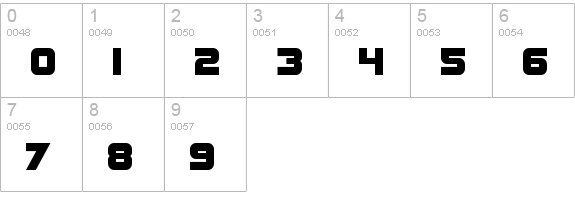
SF Sports Night NS Upright Font Details
SF Sports Night NS Upright font is a bold and dynamic typeface that perfectly captures the essence of sports and athleticism. With its strong, clean lines and sharp edges, this font exudes power and energy, making it the ideal choice for any sports-related design project. Designed with legibility in mind, SF Sports Night NS Upright font is easily readable even at smaller sizes, ensuring that your message will come across loud and clear. Whether you're designing a sports team logo, a sports event poster, or a sports-themed website, this font will add a touch of professionalism and excitement to your work. One of the best things about SF Sports Night NS Upright font is that it is free to download at FontsMarket.com. This means that you can freely use this font in both personal and commercial projects without any restrictions. It's a great resource for designers and sports enthusiasts alike, offering a high-quality font that adds a unique and powerful touch to your work. So why wait? Download SF Sports Night NS Upright font today from FontsMarket.com and start incorporating its bold and energetic style into your designs. Whether you're creating sports-themed graphics, apparel, or promotional materials, this font will make your work stand out from the crowd with its eye-catching and impactful design.